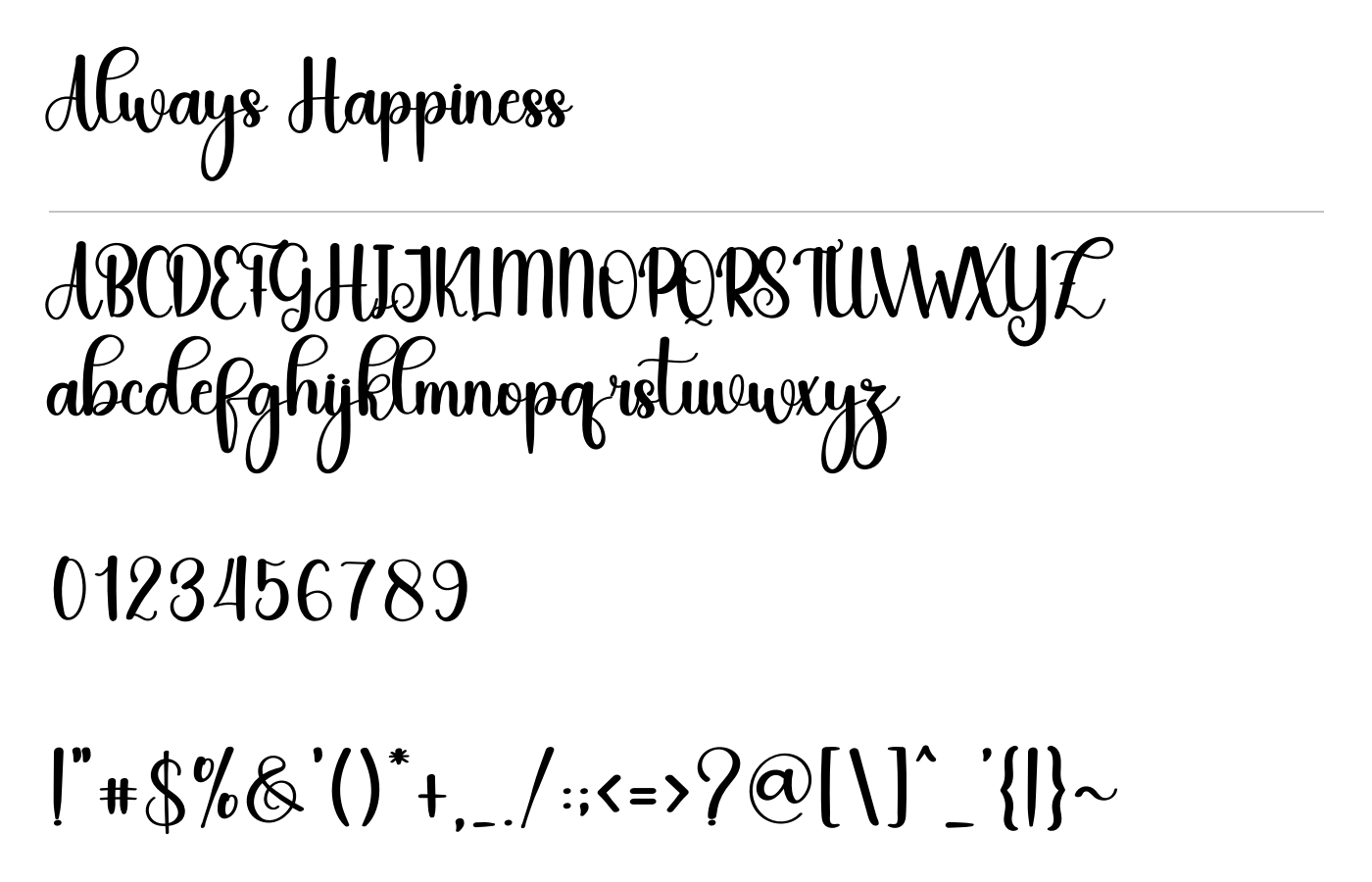
Always Happiness is a charming script font with a playful yet elegant feel, featuring smooth, flowing strokes and graceful curves. Its medium weight and lively letterforms create a warm, inviting atmosphere, making it ideal for branding, invitations, and headlines that seek a friendly, personal touch. This font works beautifully in design projects that want to convey joy and creativity with a stylish, handwritten flair.
Always Happiness Font
About Always Happiness Font